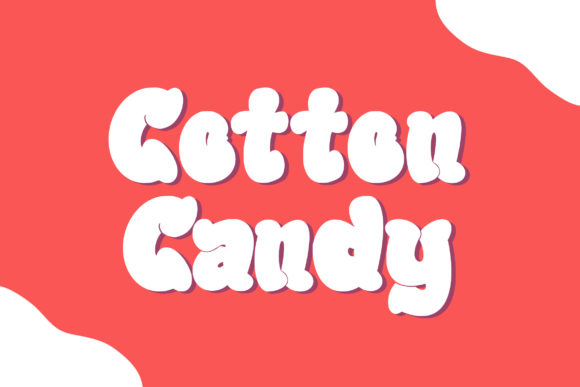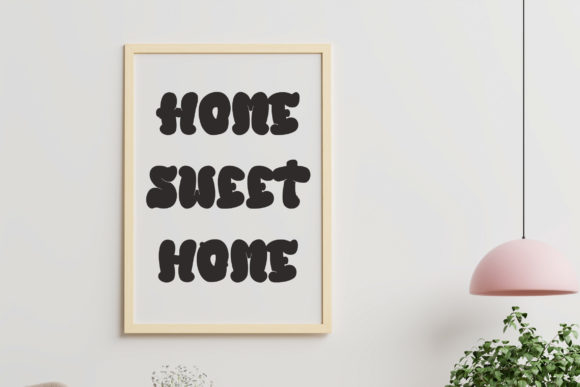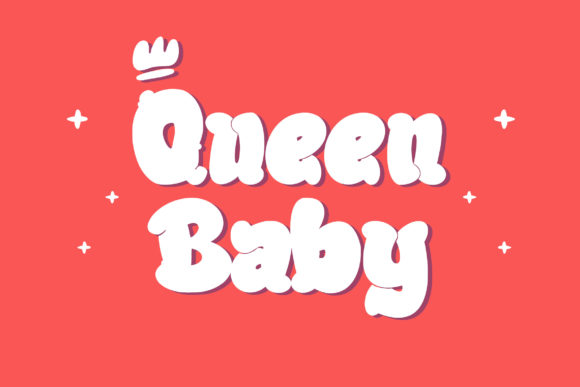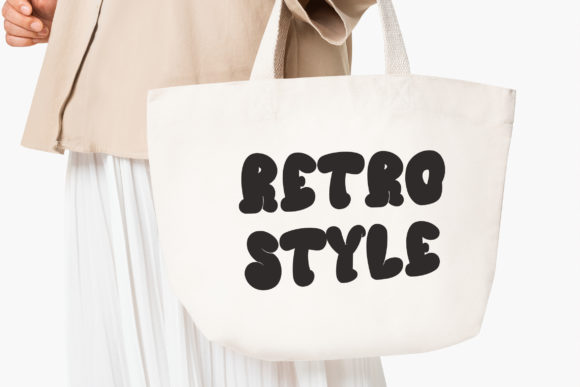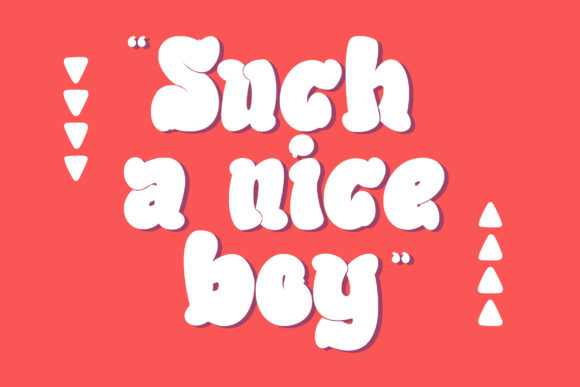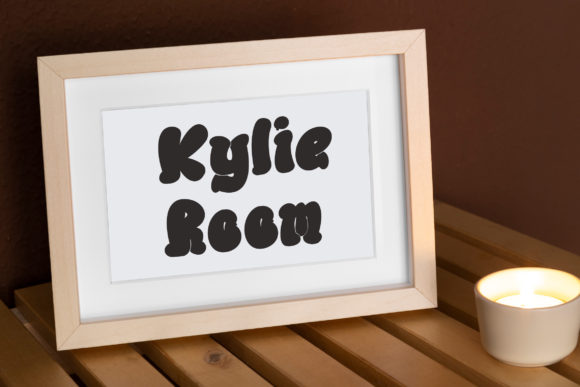
Introduction to Bubble Dope Font
Bubble Dope is a cool, bubbly and fun display font.
Whether you use it for cartoon related designs, children games or just any creation that requires a lovely touch, this font will be an amazing choice Bubble Dope is PUA encoded which means you can access all of the glyphs and swashes with ease.
Key Features of Bubble Dope Font